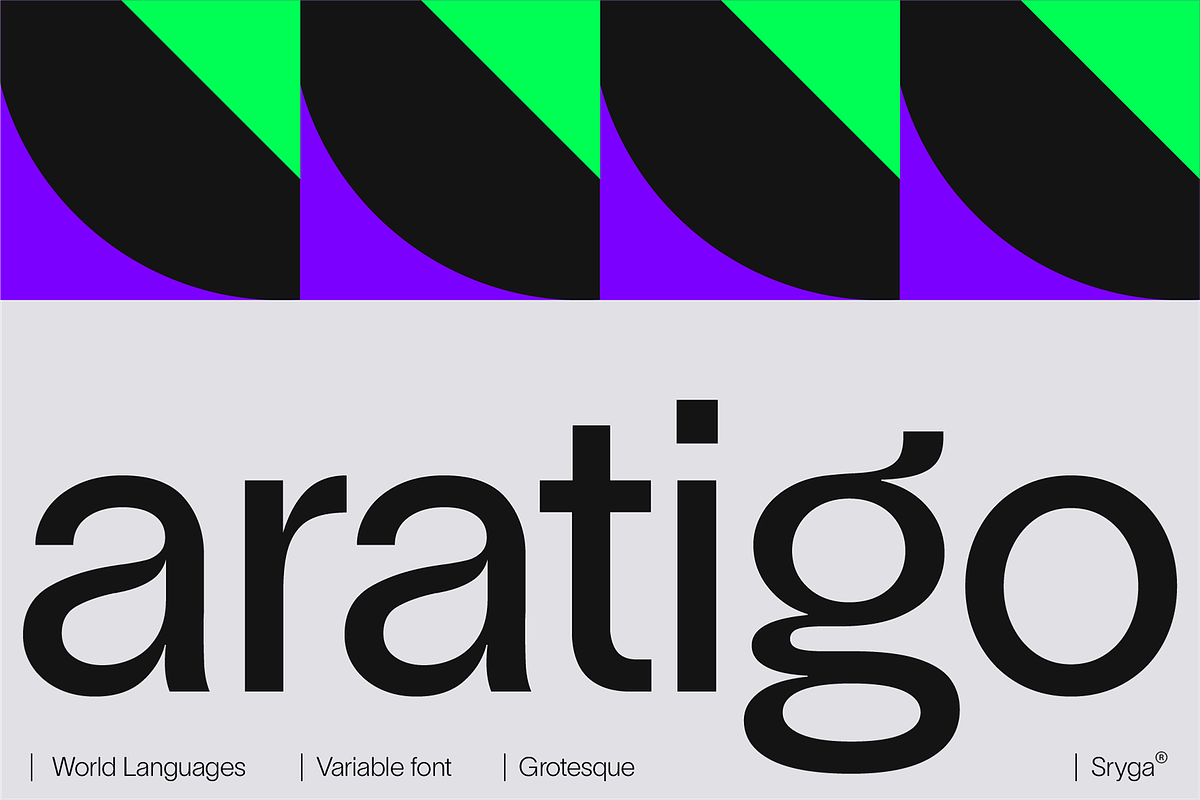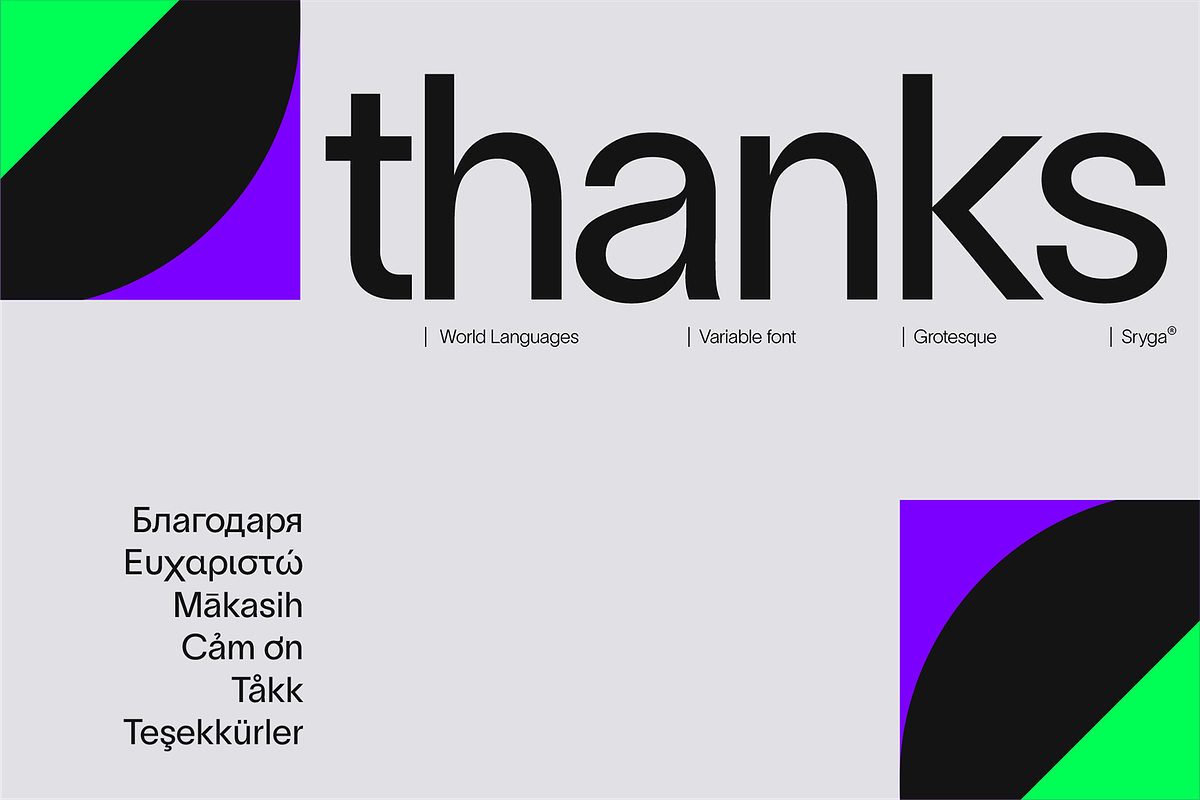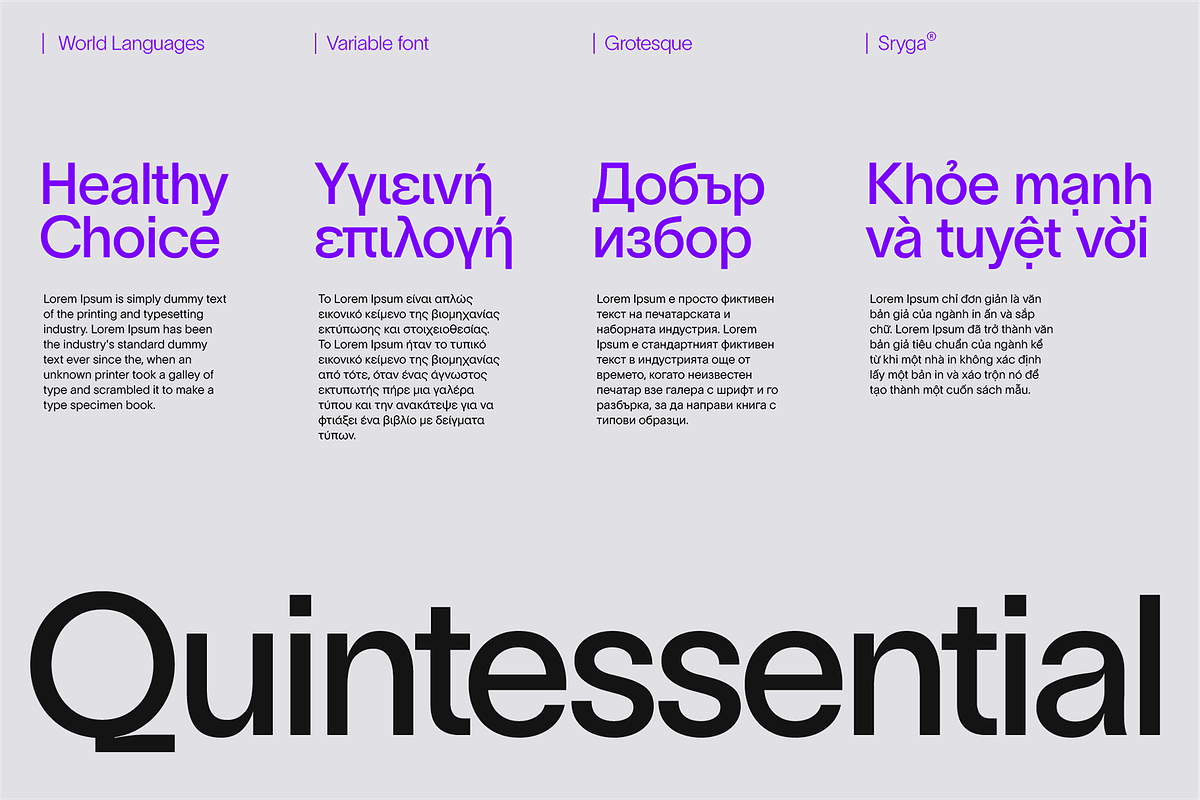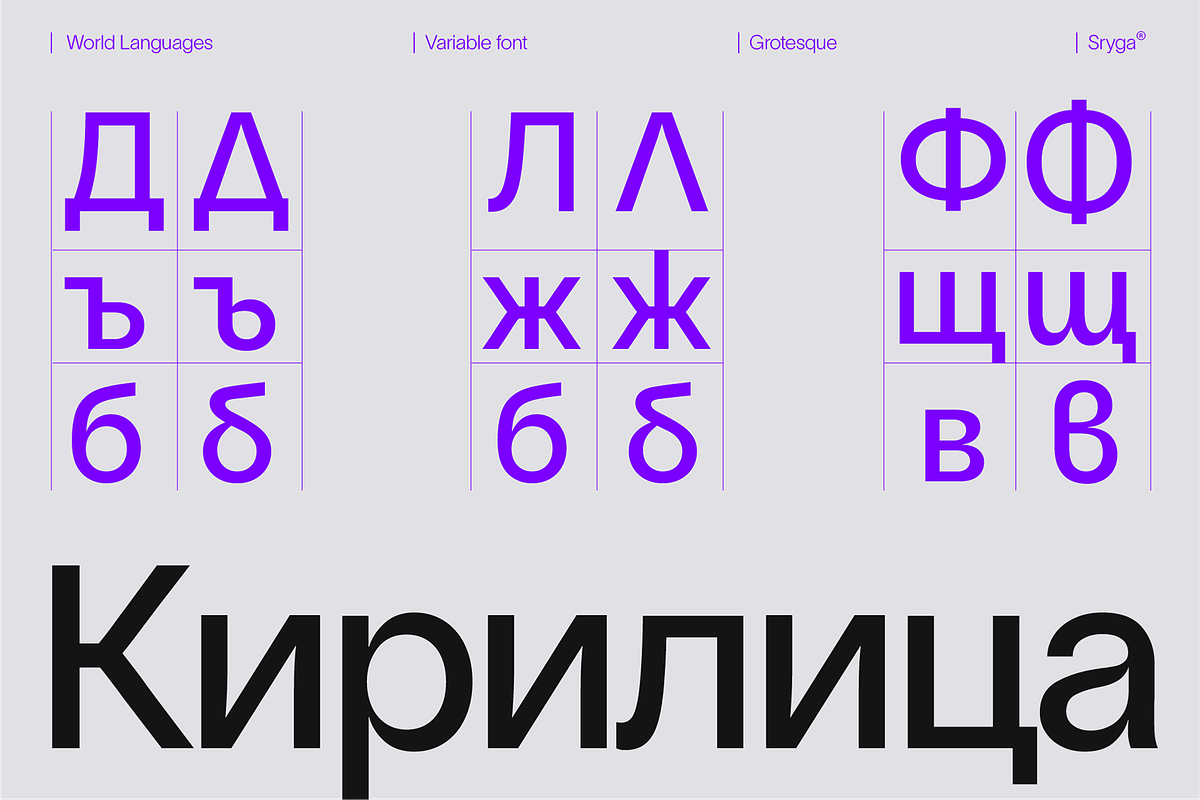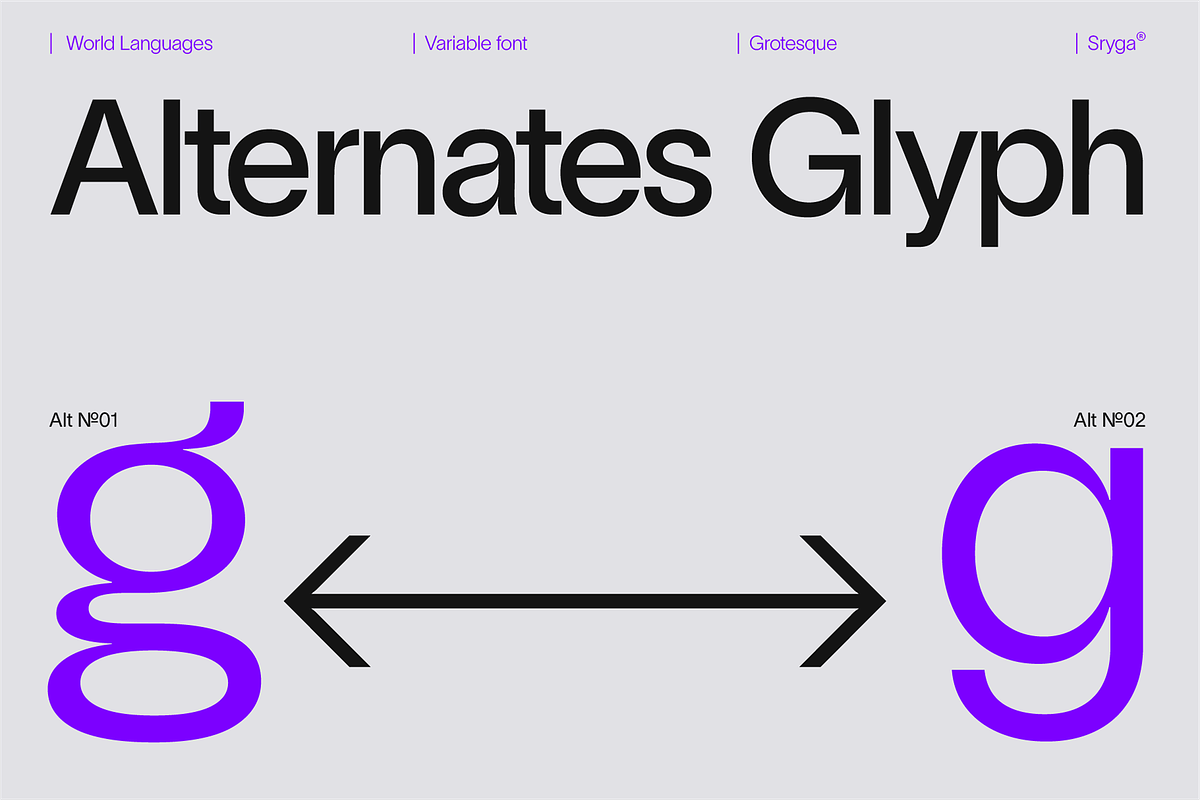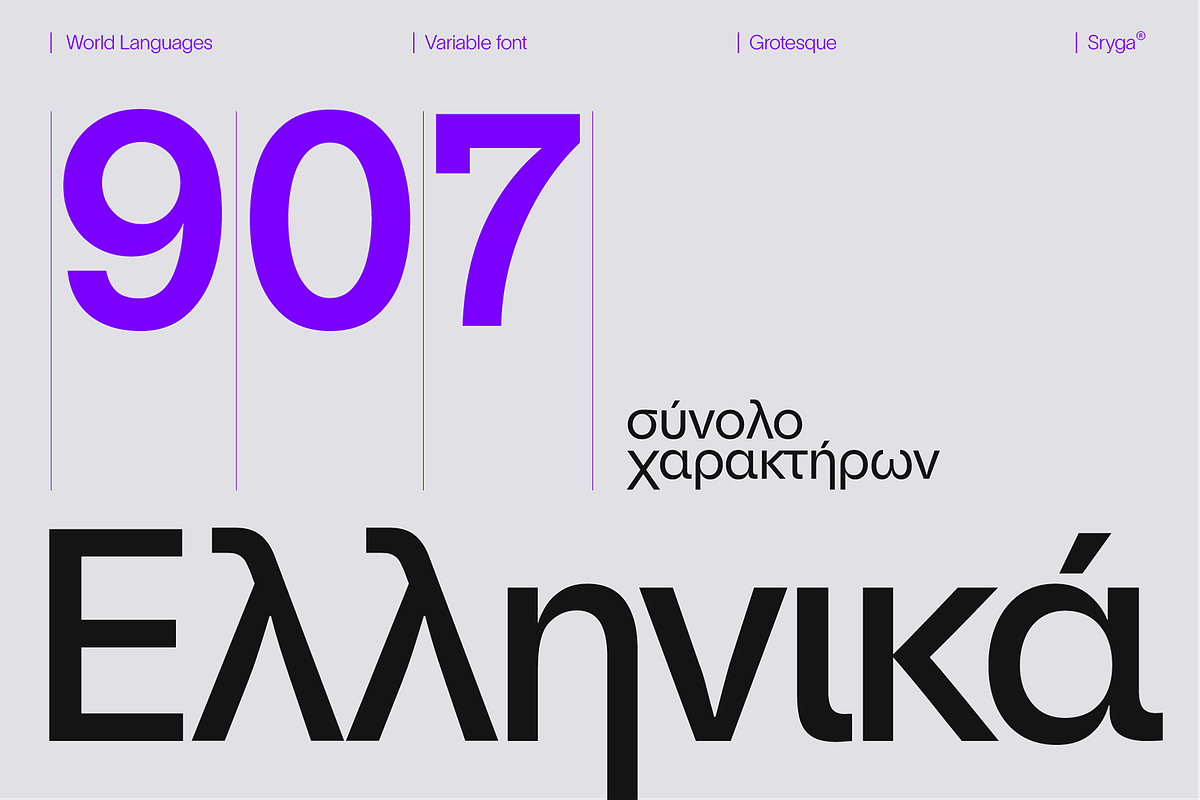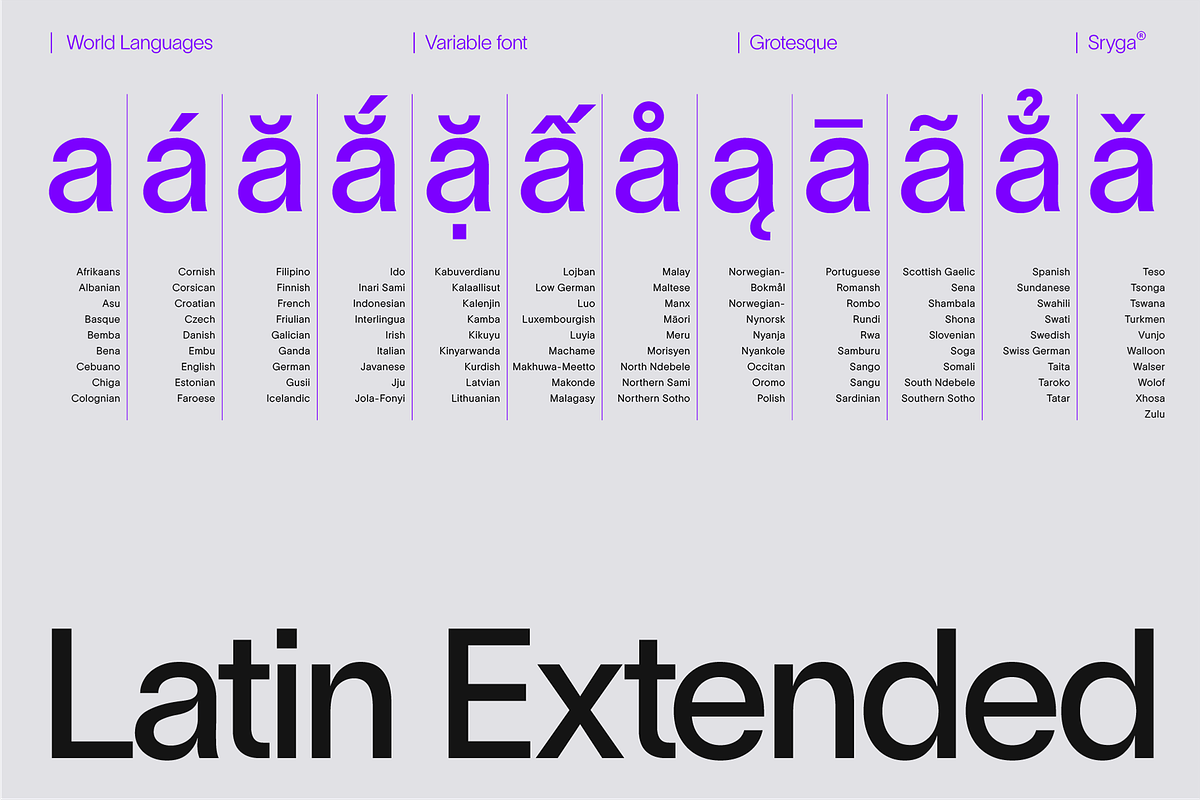
Aratigo Fluid Grotesk Variable Font
Introducing Aratigo, a typeface that marries the bold, unyielding lines of brutalism with graceful fluidity and gentle curves. Aratigo's unique design defies convention, capturing attention with its juxtaposition of strength and elegance. Each glyph, meticulously crafted, tells a story of innovation and versatility, making it perfect for both powerful headlines and delicate text. Aratigo is your canvas for creating captivating narratives that leave a lasting impression. Elevate your projects with Aratigo, where raw power meets graceful finesse in the world of typography.